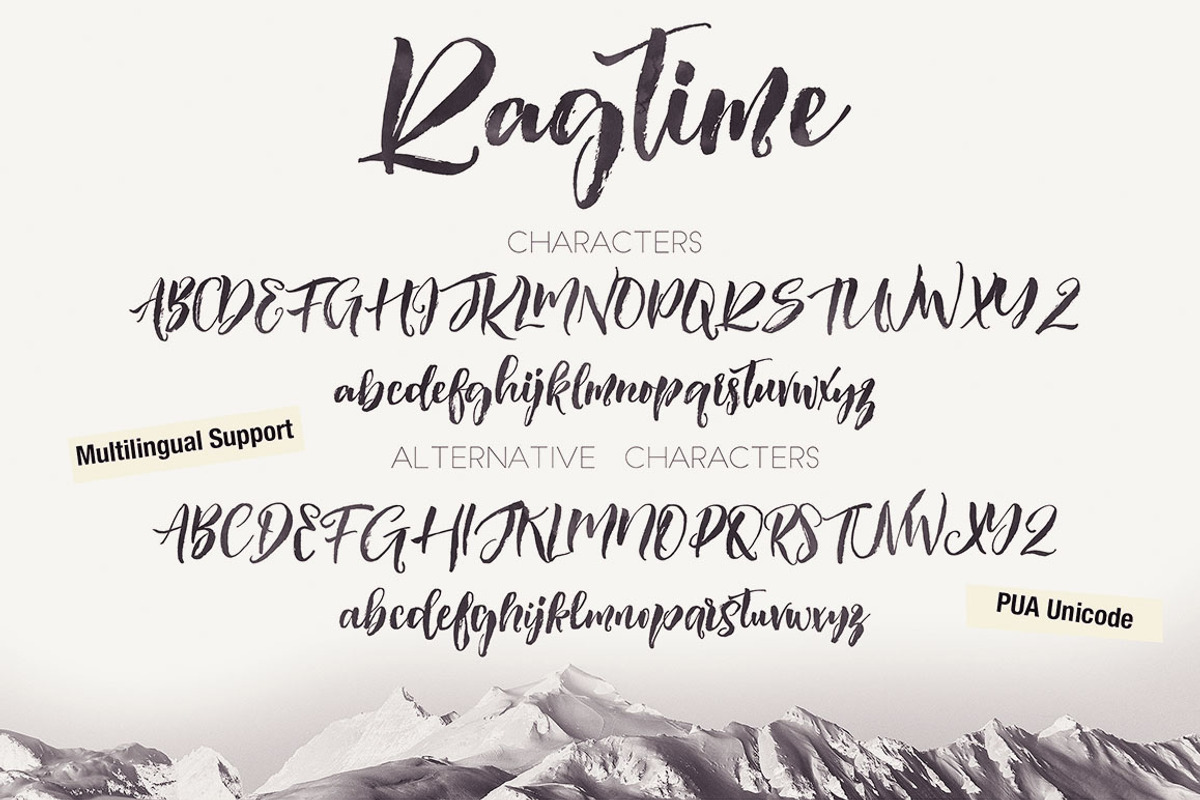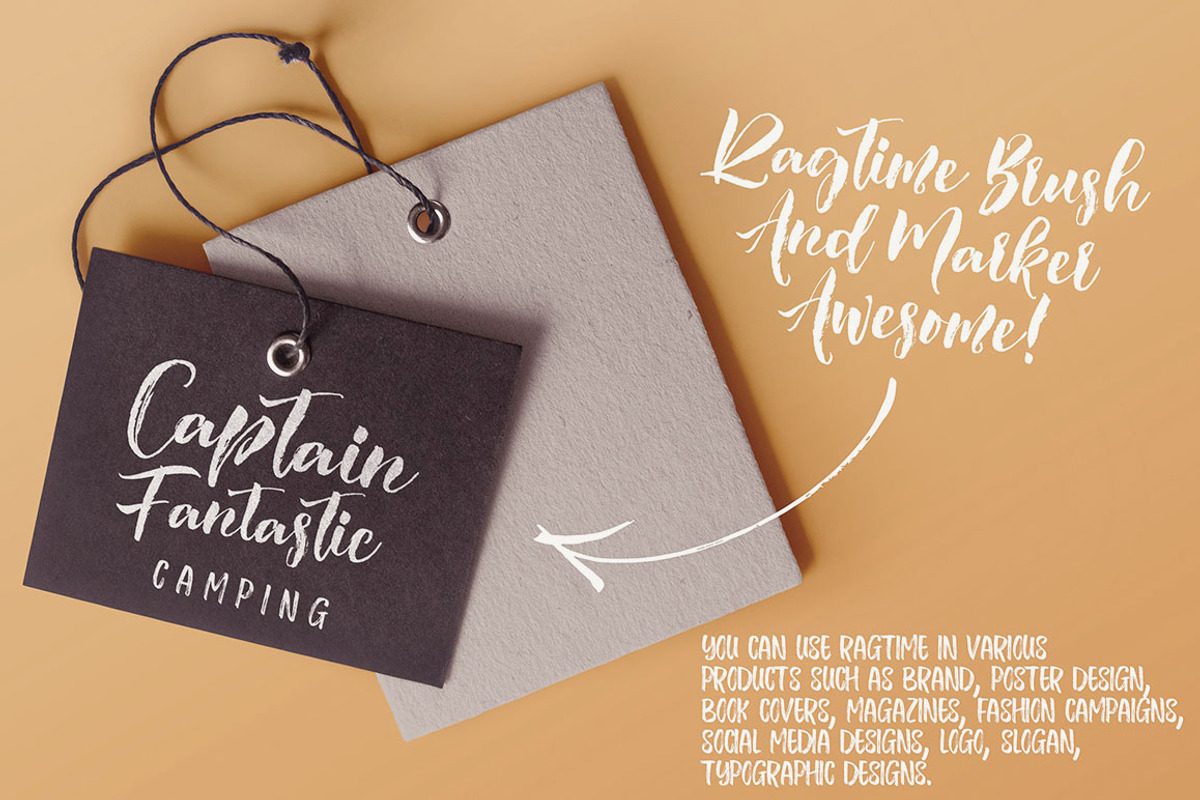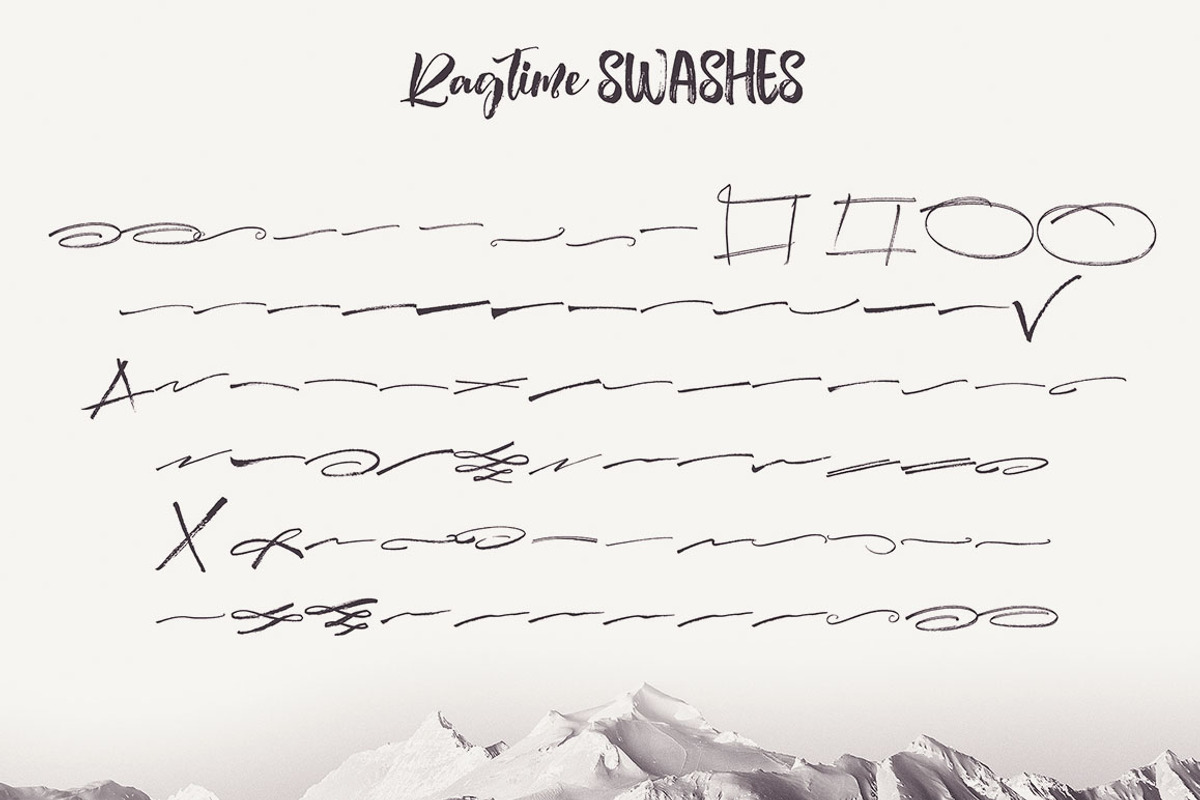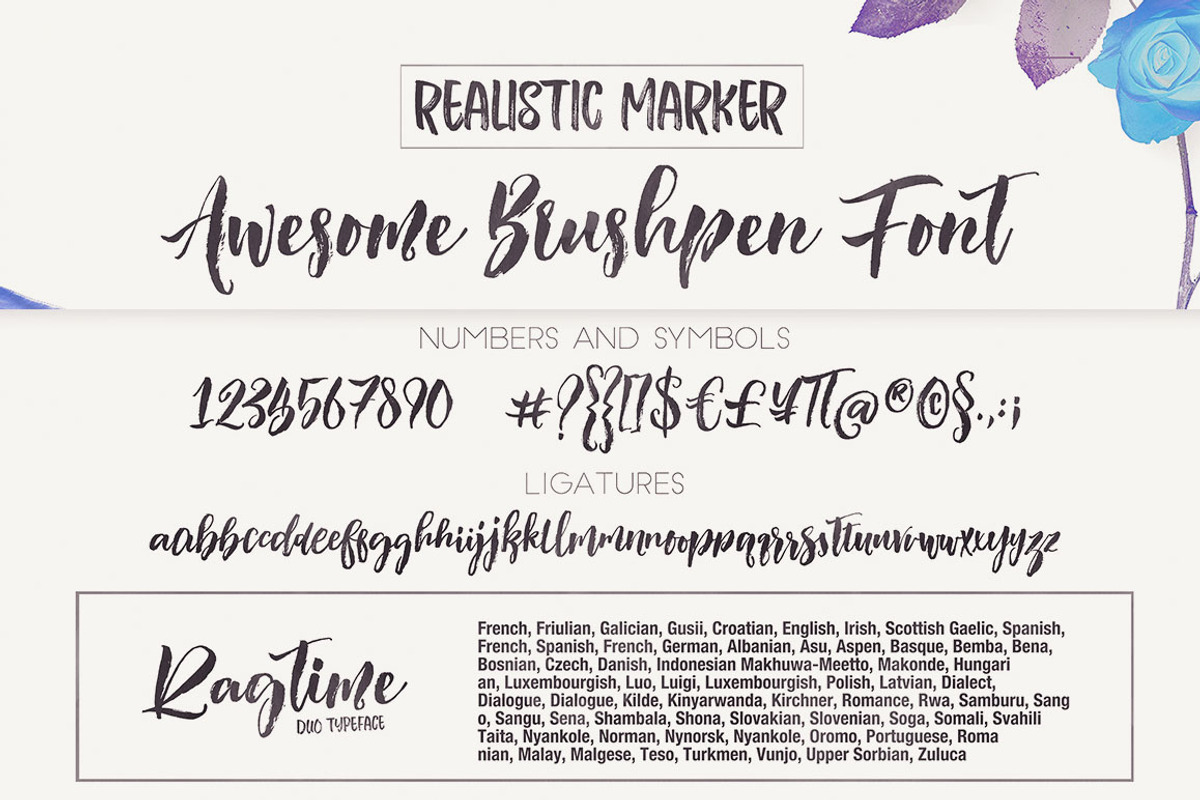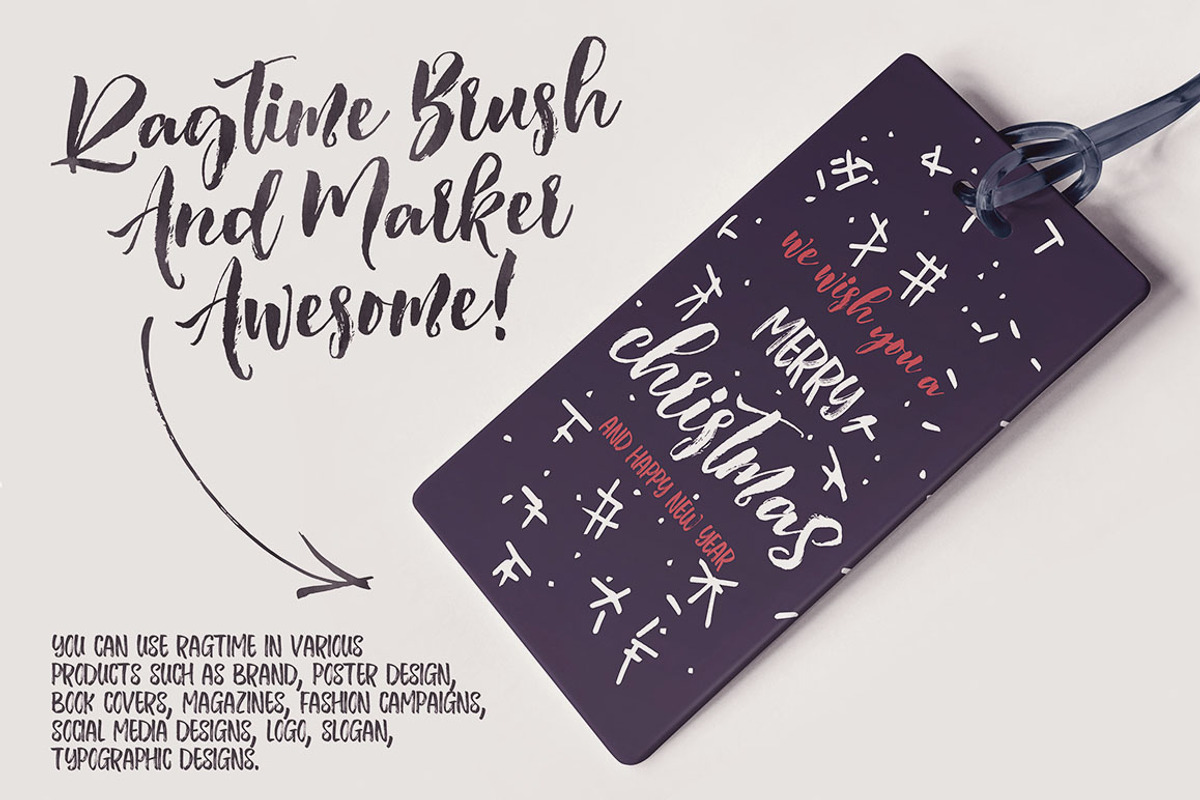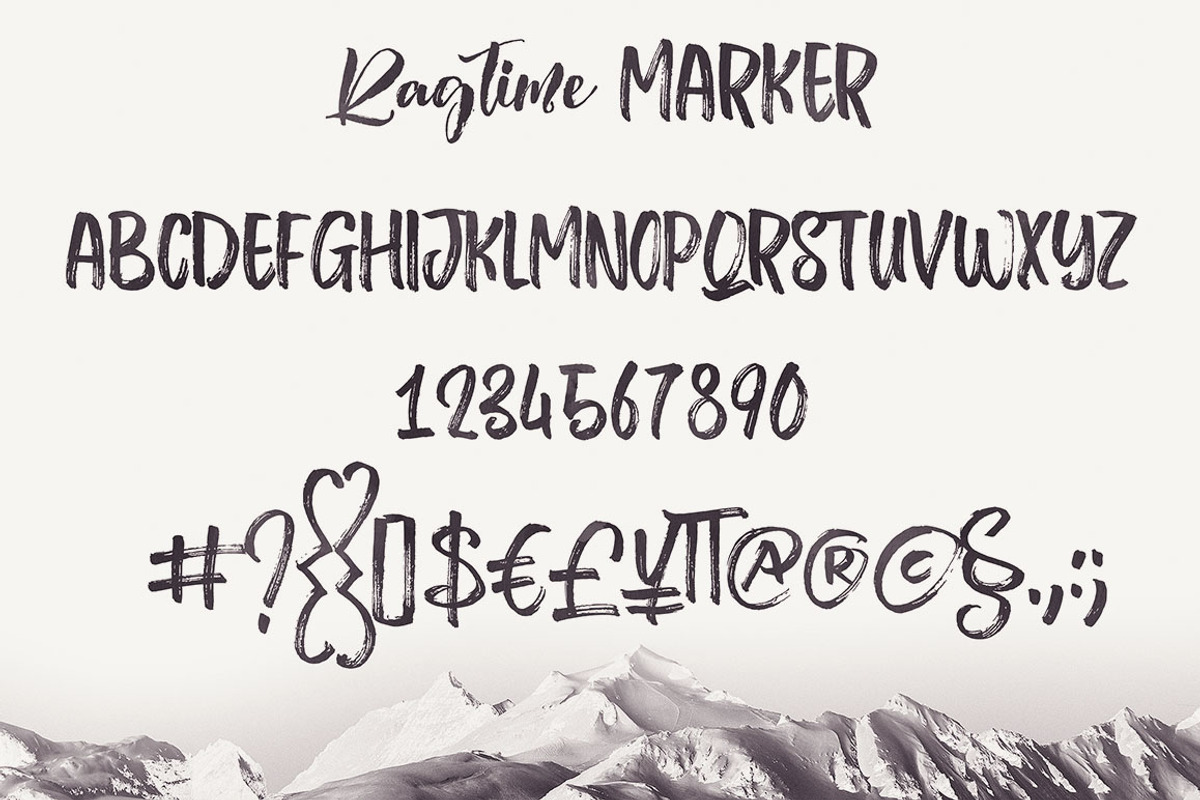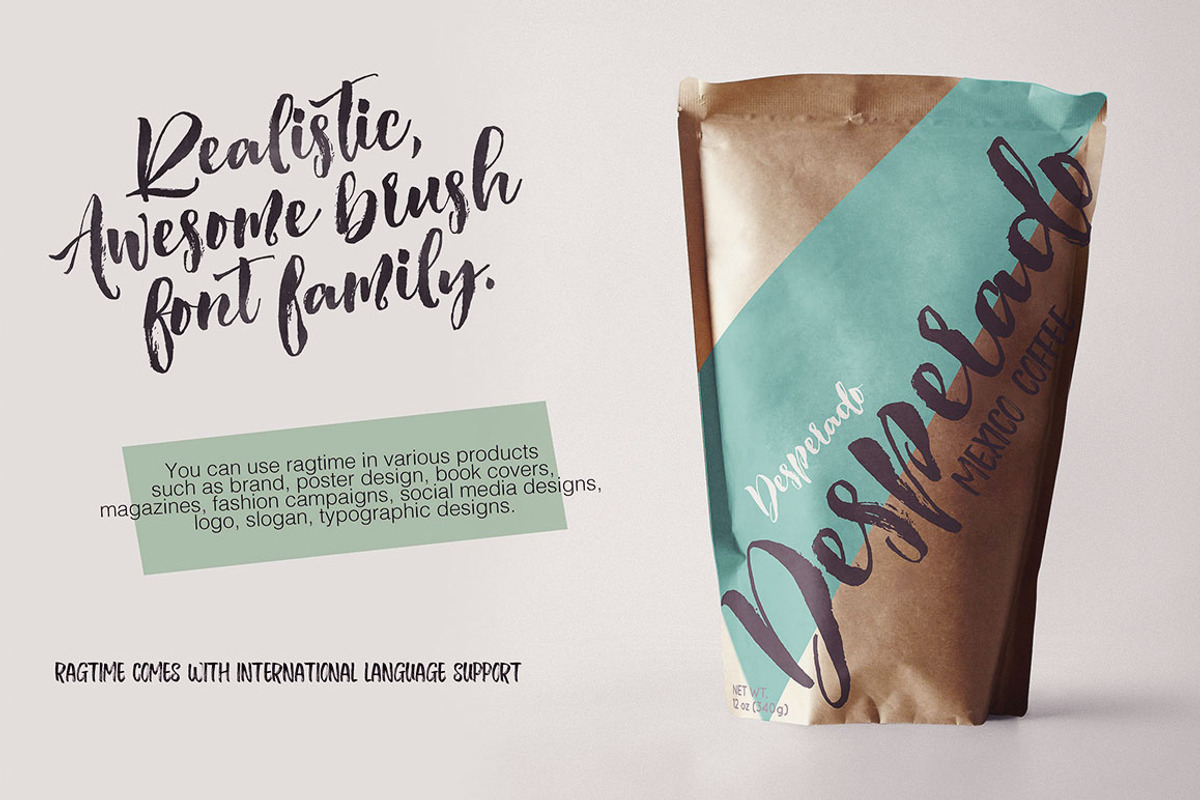
Ragtime - Brush Font Duo
Cool handwritten brush style font duo with 2 multilanguage fonts for your new projects. Great for grunge or artistic projects!